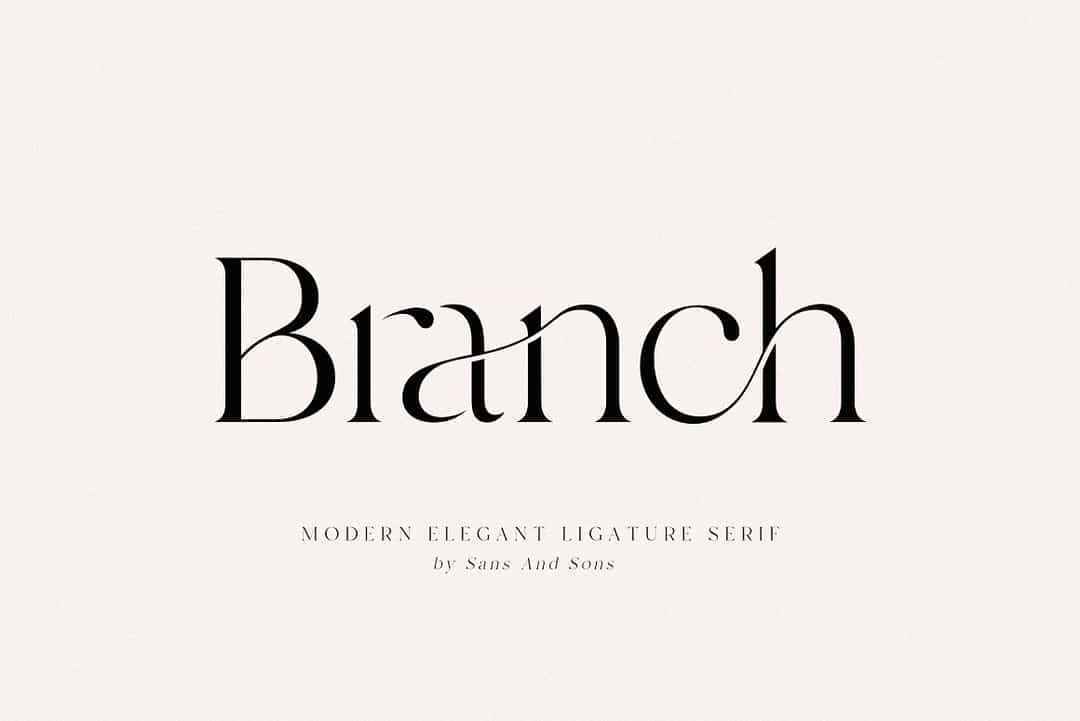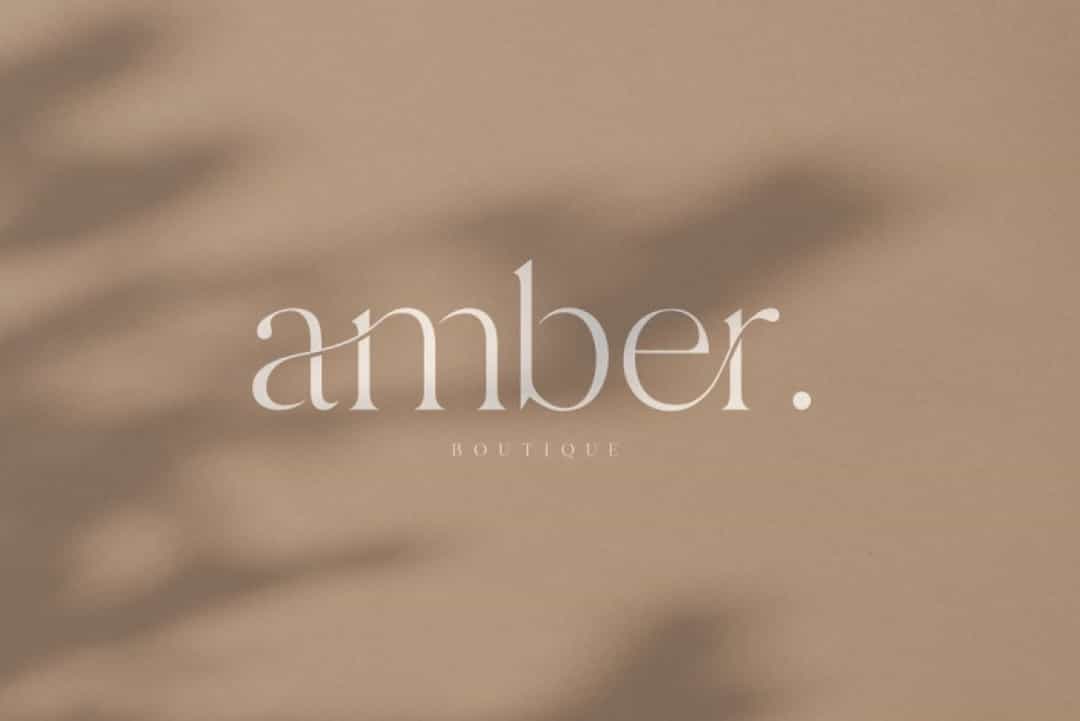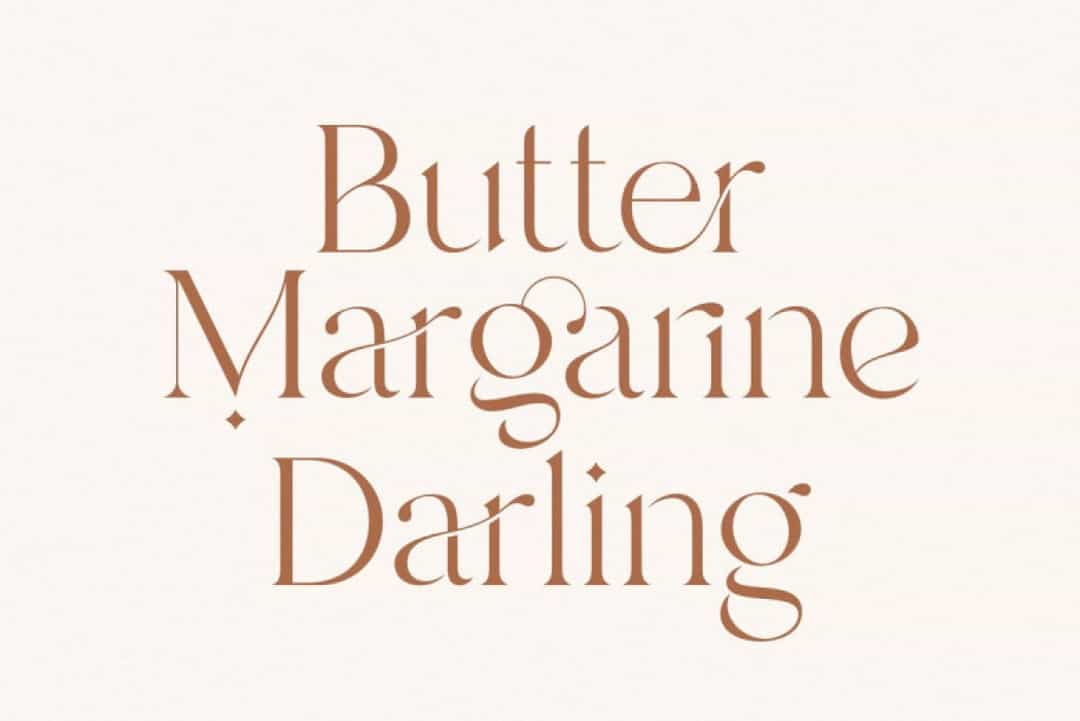
Welcome our brand new “Branch Font!” This modern ligature with elegant Serif styling makes this font ideal for logos, branding, masterheads, invitations and much more! PUA encoded, you have instantaneous access to all Swashes and Glyphs!